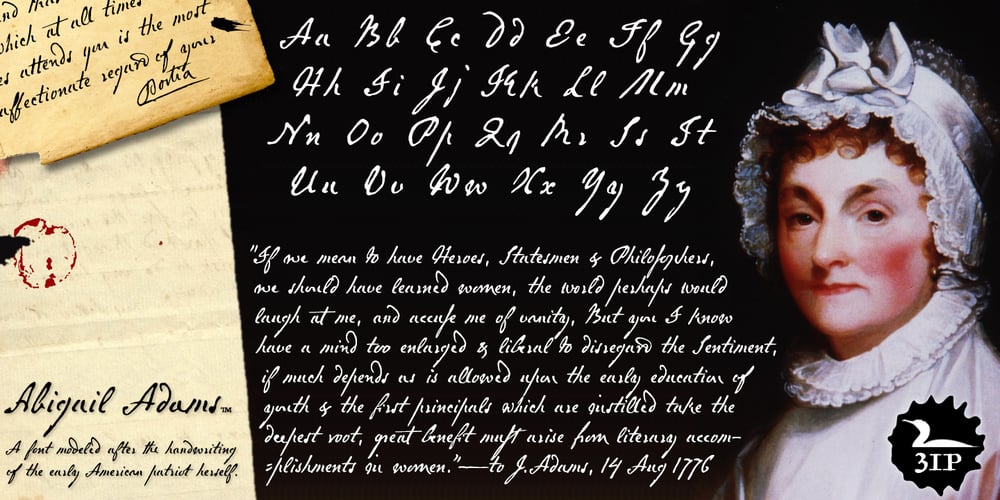
Abigail Adams
Abigail Adams font
Abigail Adams Font Family was designed by Brian Wilson and published by Three Islands Press. Abigail Adams contains 1 styles and family package options. “My Dearest Friend” is how she began nearly all her letters to her husband, John. I refer, of course, to Abigail Smith Adams, first Second Lady and second First Lady of the United States. Her famous correspondence with John Adams produced nearly 1,200 letters over a span of some 40 years, leaving us with a priceless record of early American life — from household routines to war and politics to expressions of personal worry and devotion. Although Abigail’s was not the loveliest hand, I found it sure and expressive, as befitting her extraordinary sway and intelligence; it also carries a genuine flavor of the period. In making the font I focused chiefly on her handwriting from the 1780s and ’90s, when she’d taken to using a disconnected cursive, which struck me as distinctive and alluring. The OpenType release of Abigail Adams has scores of ligatures, standard and contextual alternates, lining and old-style figures, cross-outs, ink blots, and full Latin language support.